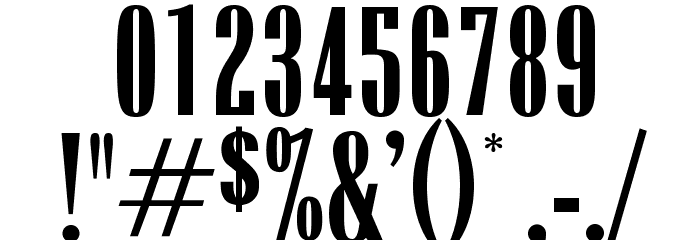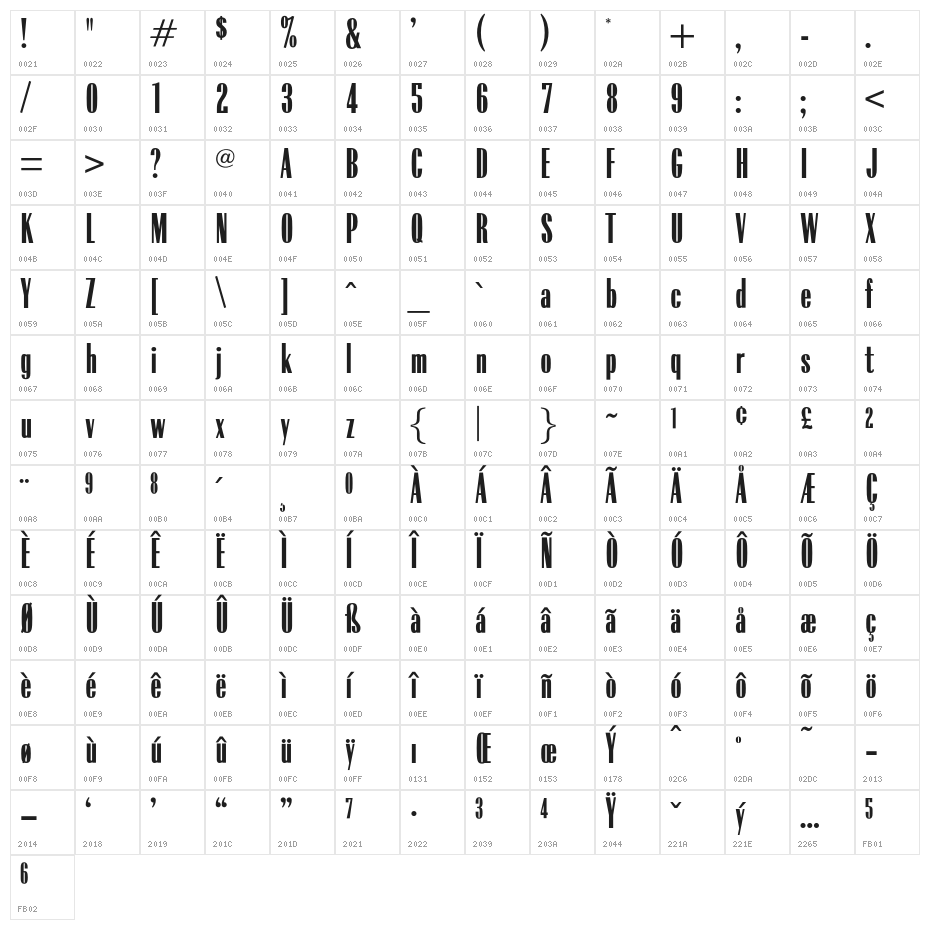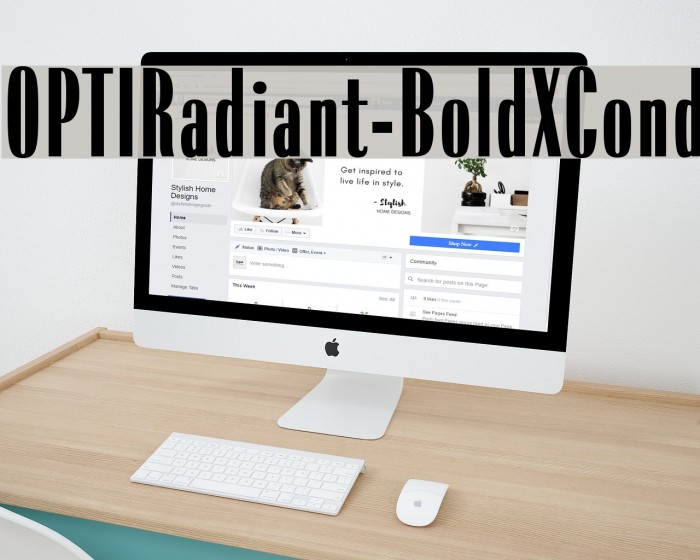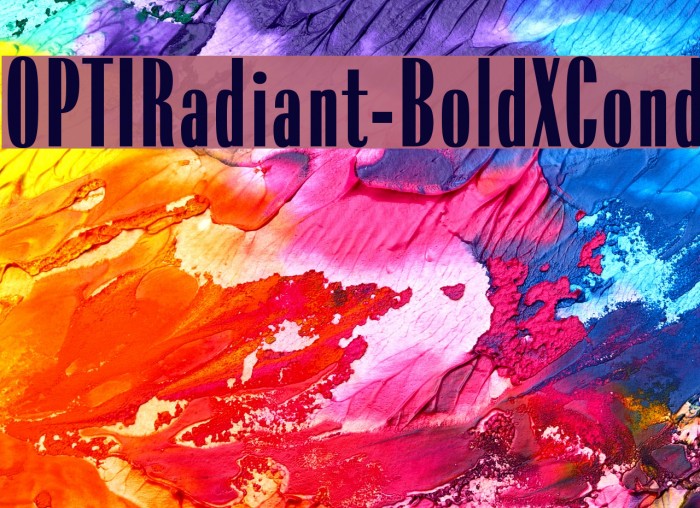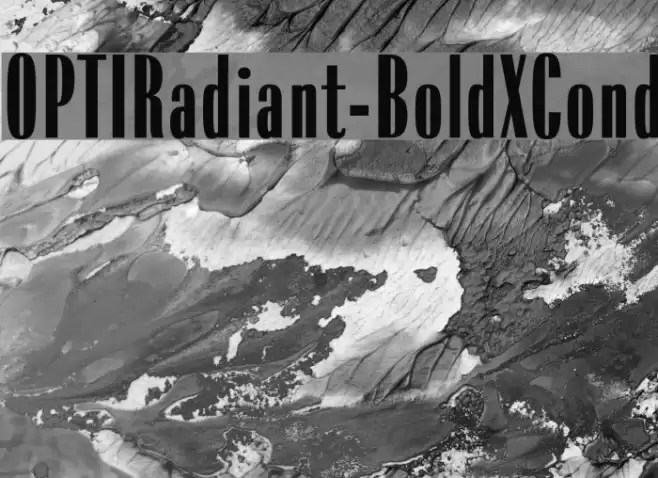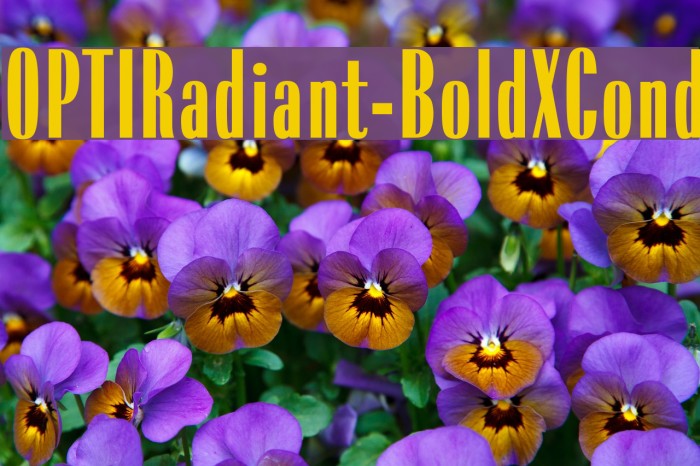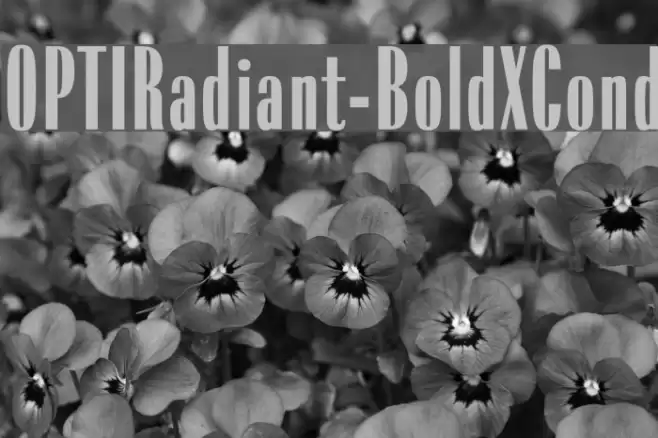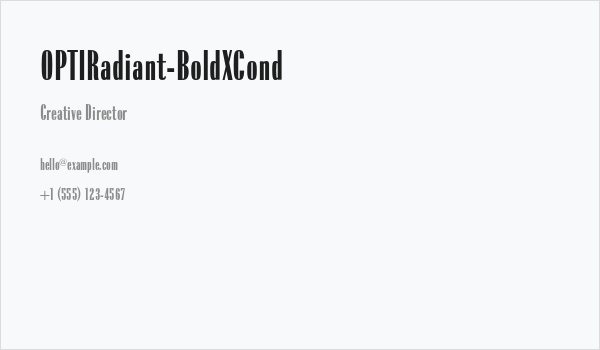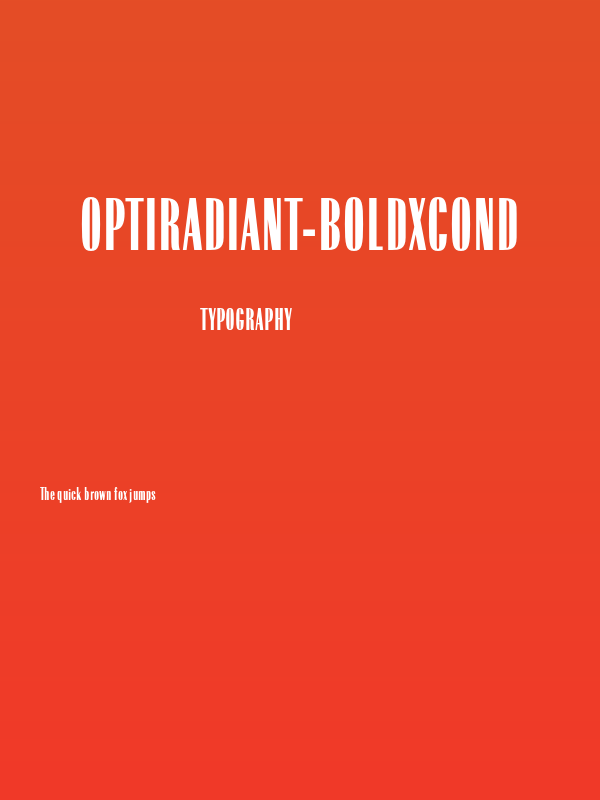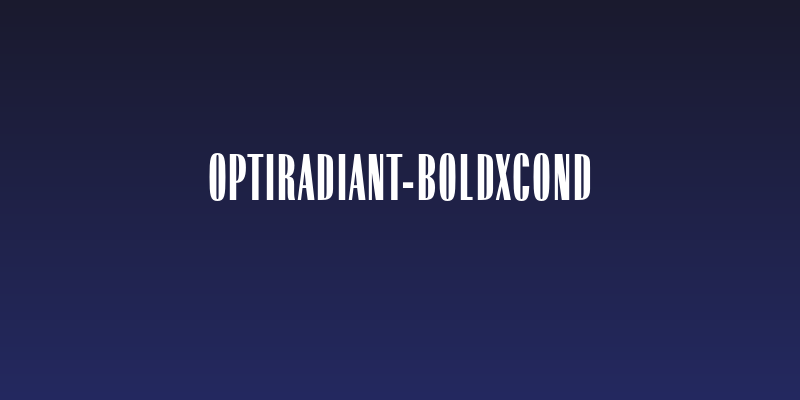
OPTIRadiant-BoldXCond Font
OPTIRadiant-BoldXCond Description
This typeface features a bold and condensed style, characterized by its tall, narrow letterforms and strong vertical emphasis. The uppercase letters are particularly striking, with a commanding presence that makes them ideal for attention-grabbing headlines. The lowercase letters maintain the same condensed proportions, ensuring consistency across text. The numerals are clear and legible, matching the boldness of the alphabet. Special characters are included, adding versatility for various design needs. The overall design is modern and impactful, suitable for projects that require a strong visual statement.
| Proposed Projects | Ideal for headlines, posters, branding, and any design requiring a strong visual impact. |